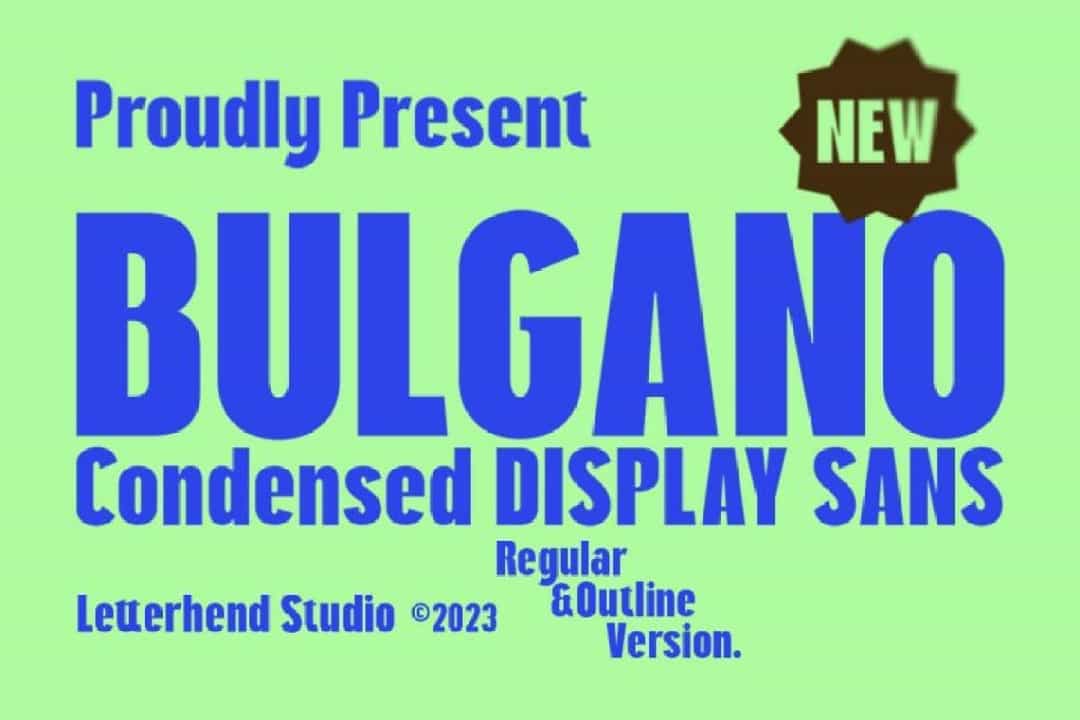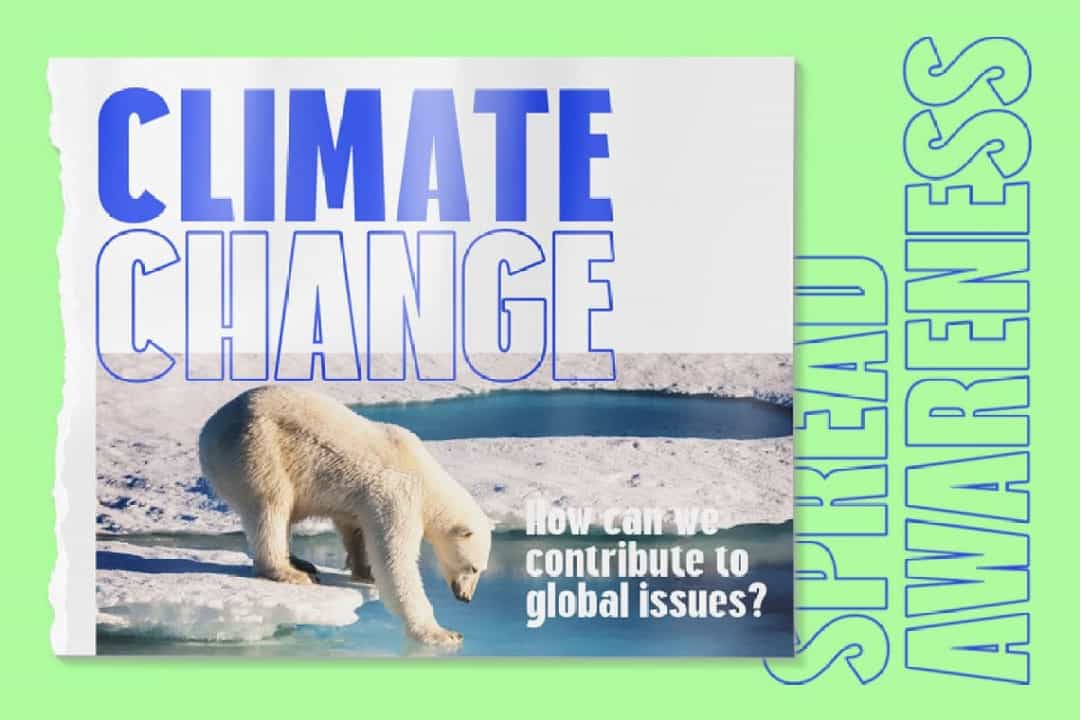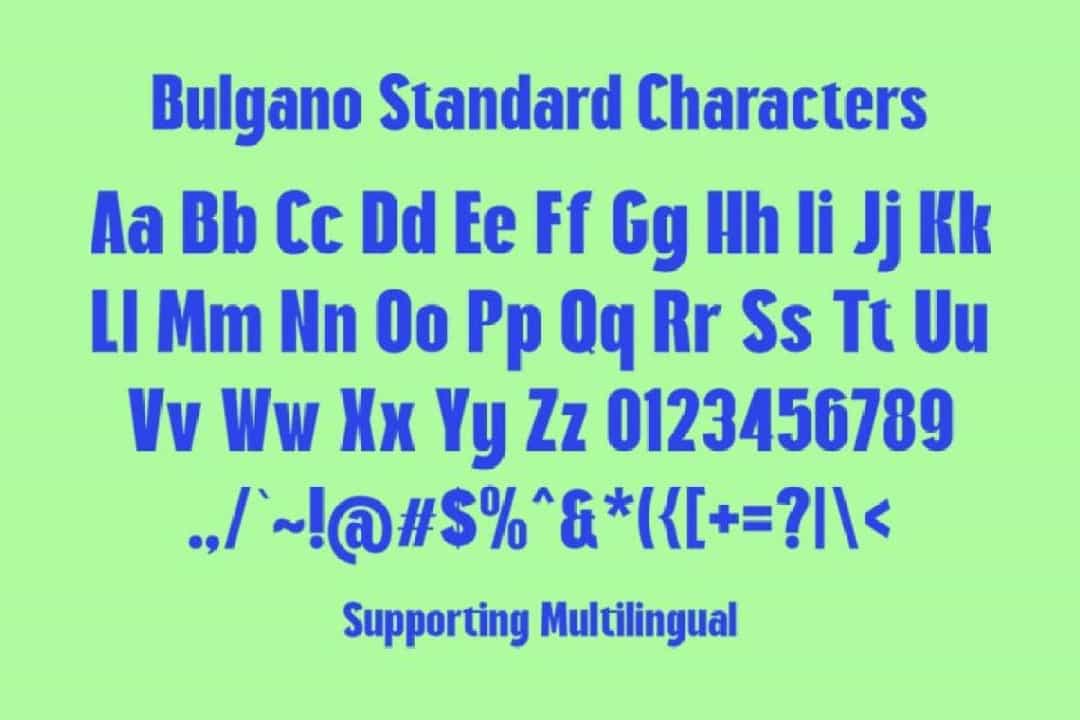
Bulgano is a condensed display sans font with two styles: normal and outline. Its casual yet classic looks make it suitable for labels as well as logos, books, magazines and wedding, greeting cards packaging fashion, make-up, stationery products, novels or labels or any kind of advertisement.